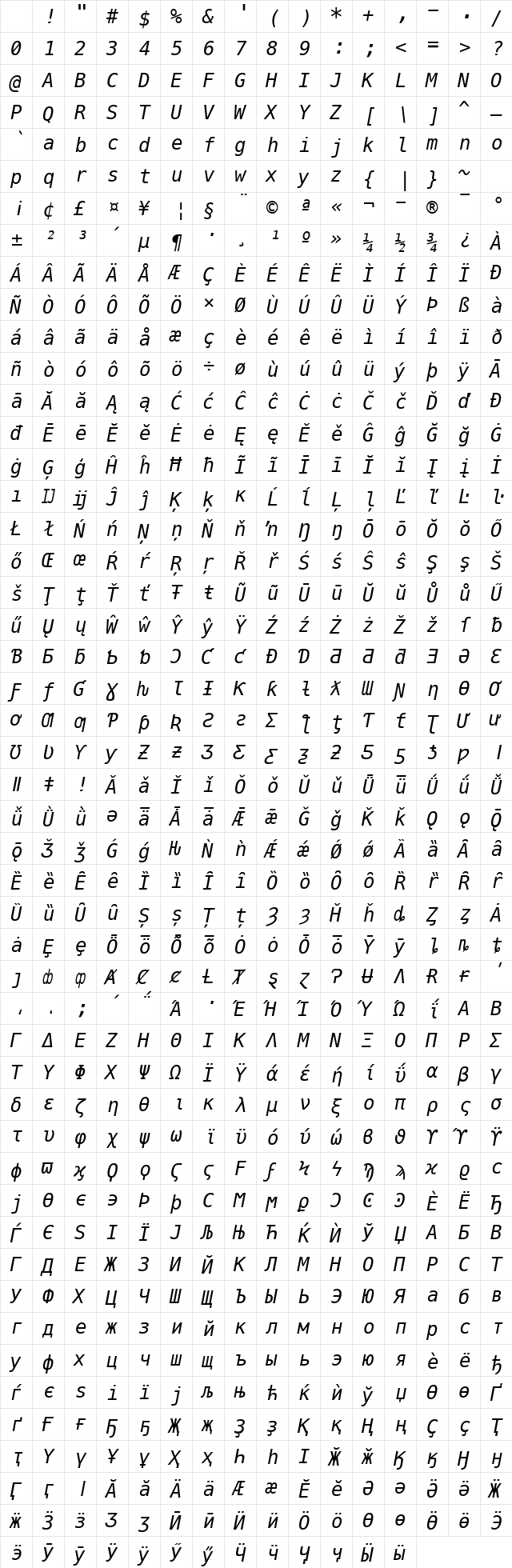
Complete Meslo LG S for Powerline Italic glyph index. Displaying only characters natively supported by Meslo LG S for Powerline Italic font.
Meslo LG S for Powerline brings high-energy athletic personality to the page - its confident, muscular forms are built for impact. The slanted form adds forward momentum and visual energy.
Pro Tip: Use Meslo LG S for Powerline in all-caps headlines where its athletic energy can fully express itself. Pair with a solid, simple sans for supporting text.